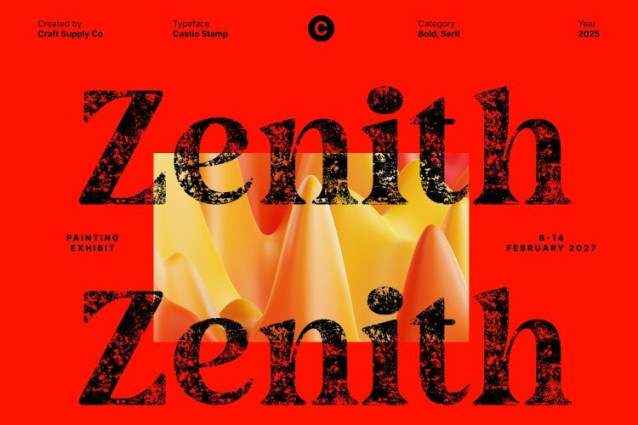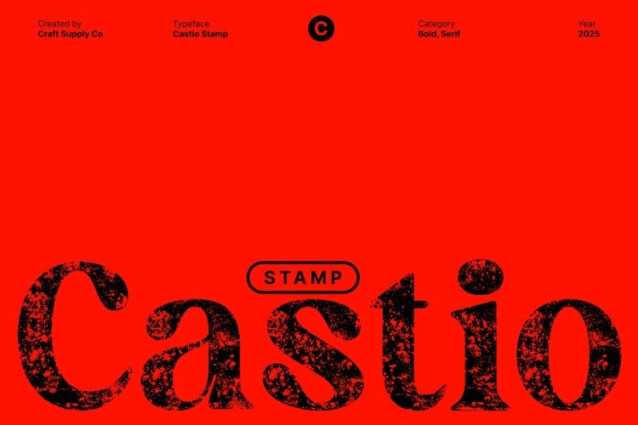
Castio Stamp Font
Castio Stamp Font This is a bold serif font built with strong weight, sturdy proportions, and striking visual presence. Its commanding structure immediately draws the eye, making it perfect for designers who want typography that stands tall and delivers impact. With its bold form, excels in posters, powerful headlines, and strong branding that requires clarity and confidence.
Expressive Stamp Texture for Vintage Character
Enhanced by a rugged stamp effect, this font introduces rich texture and handcrafted charm to its bold serif construction. Each character carries unique, artistic imperfections that mimic the raw feel of traditional stamped printing. This textured detail elevates the font with a vintage, expressive personality balancing strength with artistic depth.
Perfect for Vintage Branding, Editorial Layouts, and Dramatic Posters
This font shines in visual environments where drama and sophistication matter. From vintage-inspired branding to editorial layouts, book covers, promotional posters, and high-end creative concepts, its textured boldness enhances any design. The combination of thick serifs and stamped texture makes it ideal for heritage themes, retro aesthetics, and expressive storytelling.
A High-End Bold Serif with Timeless Drama
Blending powerful serif elegance with handcrafted vintage texture, creates a distinct typographic voice that feels both authoritative and artistic. Its bold presence, expressive texture, and high-end dramatic tone make it a standout choice for designers aiming to craft memorable, sophisticated, and visually rich compositions.